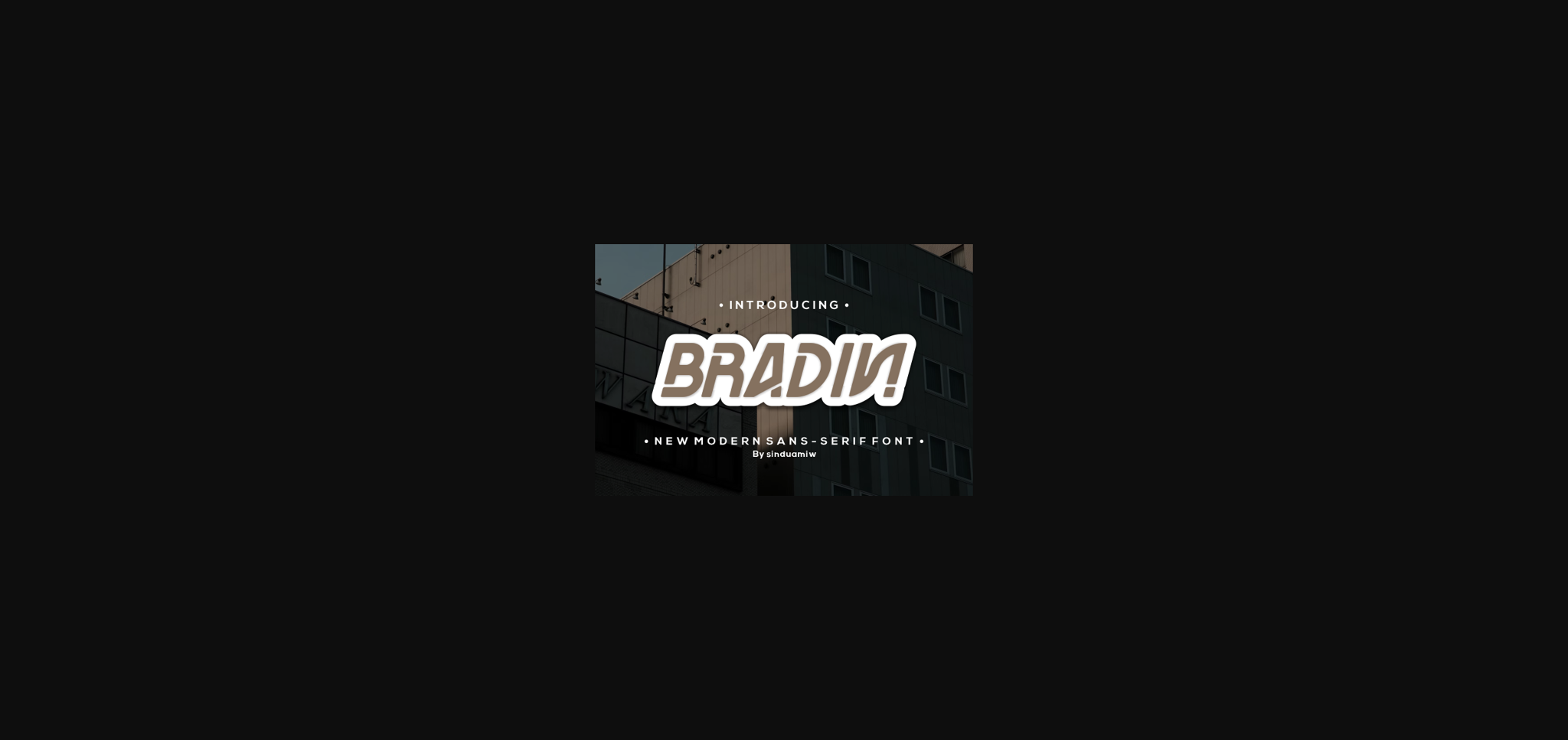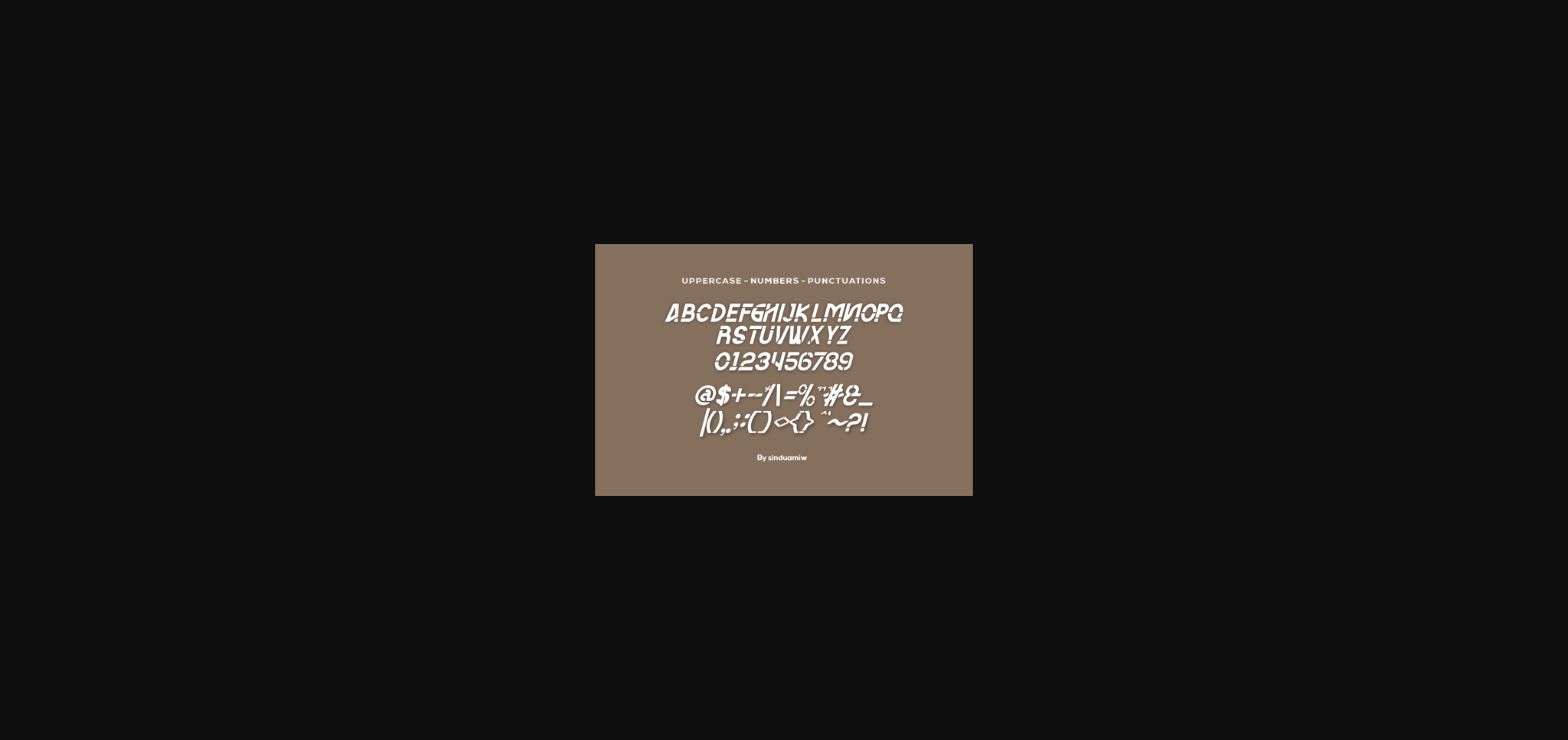
Bradin Font
About Bradin Font
Bradin is a cool and modern sans serif font. Its trendy vibe works great for all your designs that require a fresh, unique look.